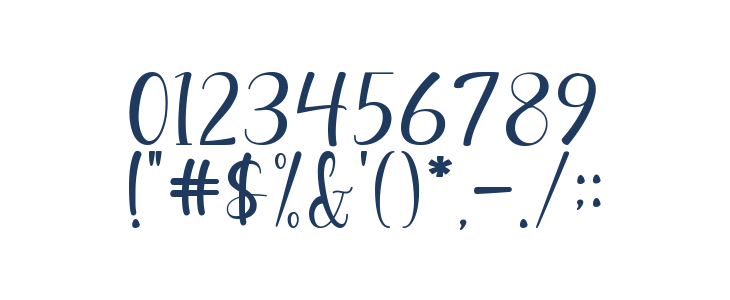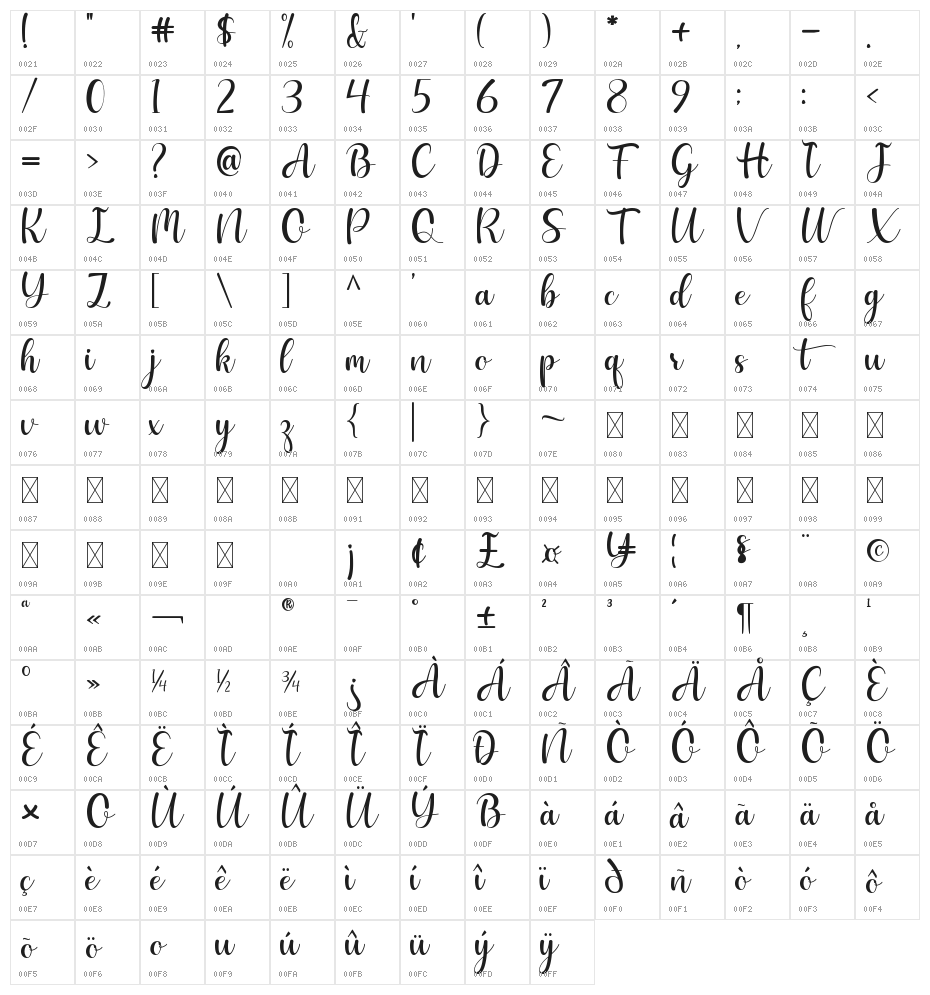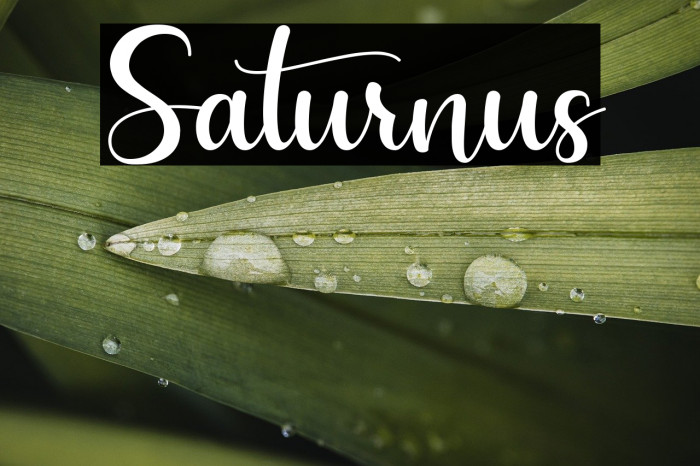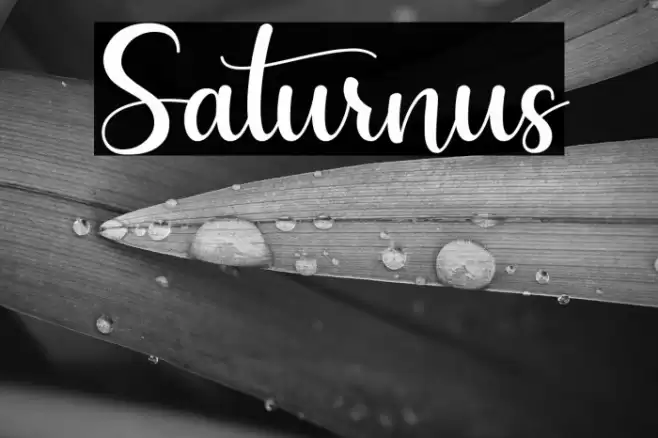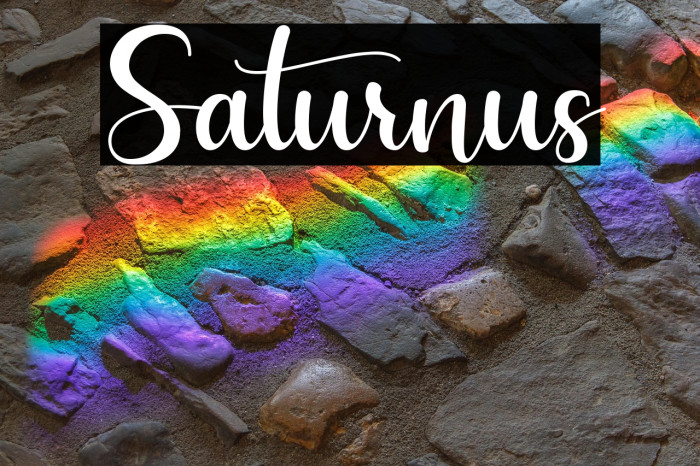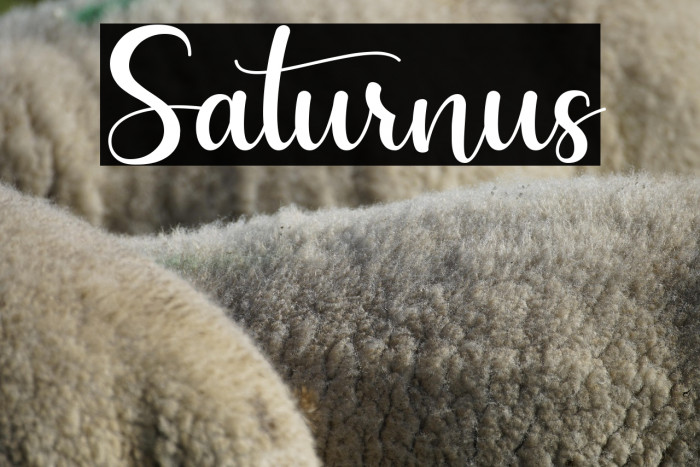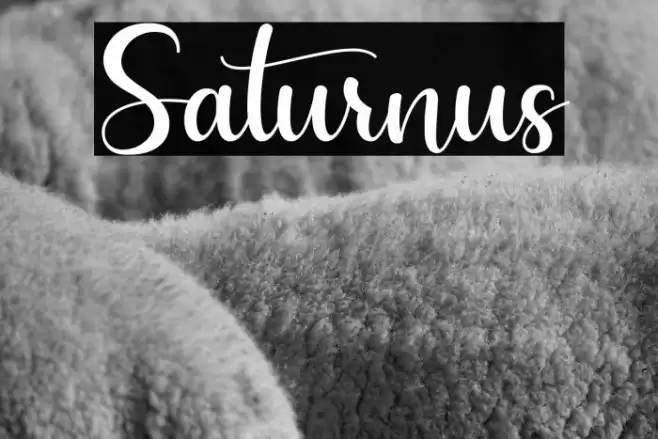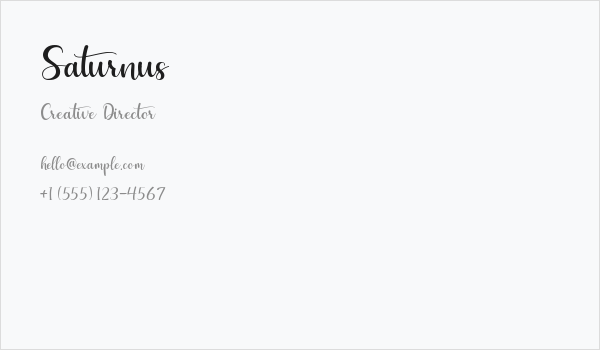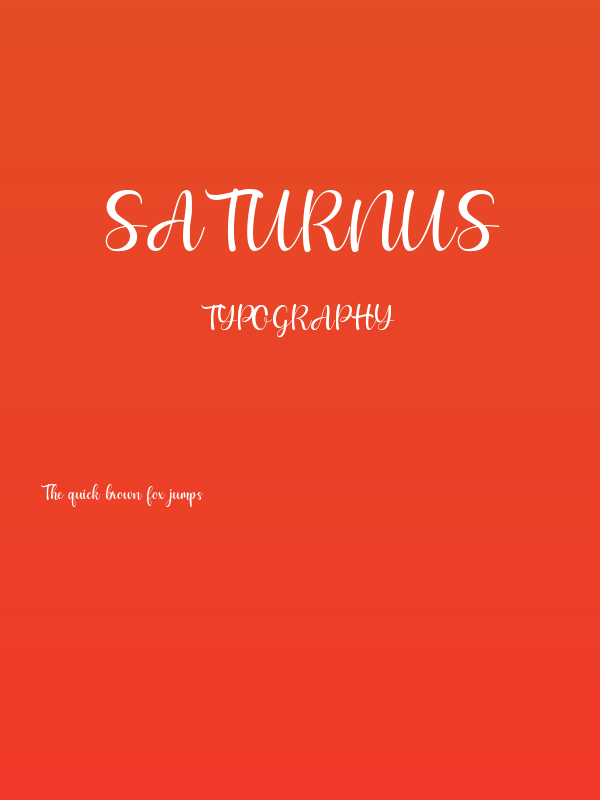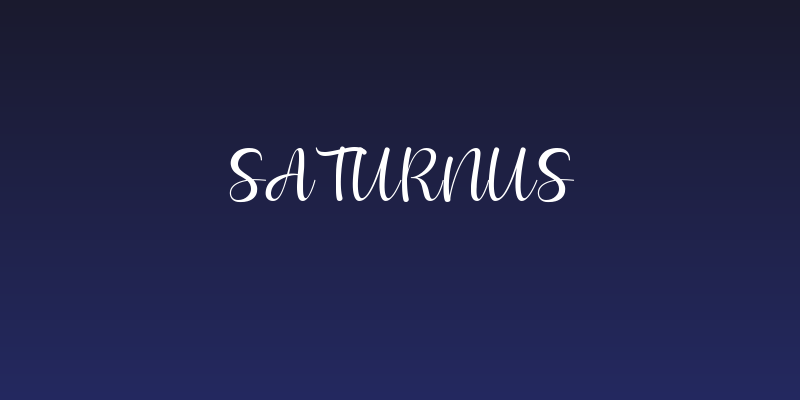
Saturnus Font
Saturnus Description
This elegant script font features a flowing, cursive style with a modern touch. The uppercase letters exhibit a graceful, sweeping form, while the lowercase letters maintain a consistent fluidity, enhancing readability. The numerals are stylish yet clear, complementing the overall aesthetic. Special characters are crafted with the same attention to detail, ensuring versatility in various design contexts. The font's smooth curves and balanced proportions make it suitable for a wide range of creative projects.
Use CaseLogos, Invitations, Branding
Proposed ProjectsIdeal for wedding invitations, branding, greeting cards, and elegant packaging designs.